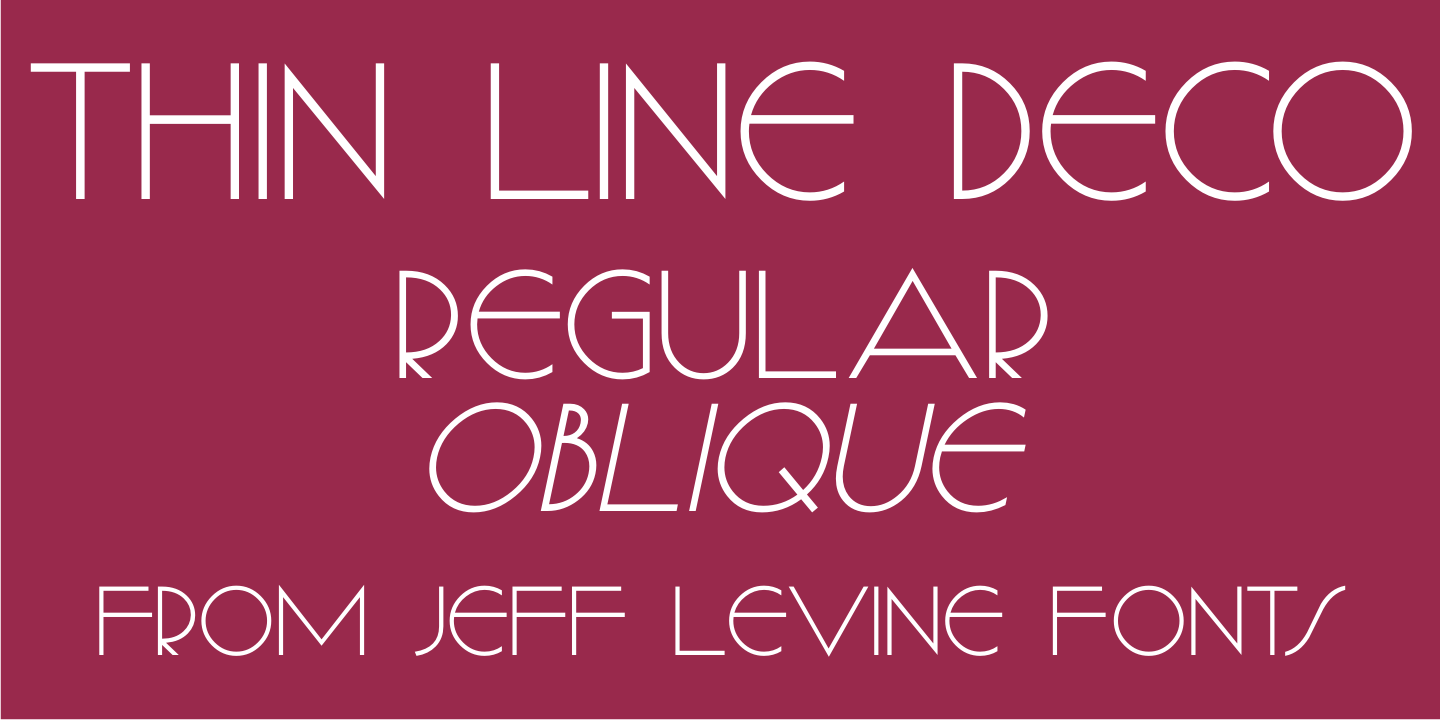
Thin Line Deco
The cover of the 1943 sheet music for the song 'Jeannie' offered up a hand lettered monoline Deco sans with varying width letterforms. From this design comes the aptly-named Thin Line Deco JNL.
Thin Line Deco Regular by Jeff Levine Fonts